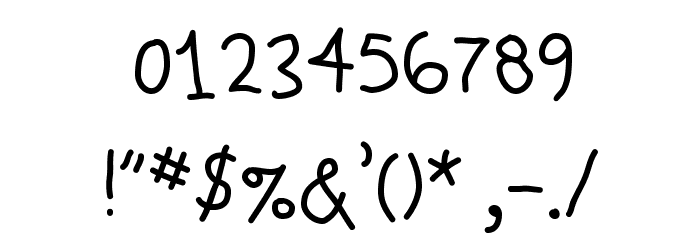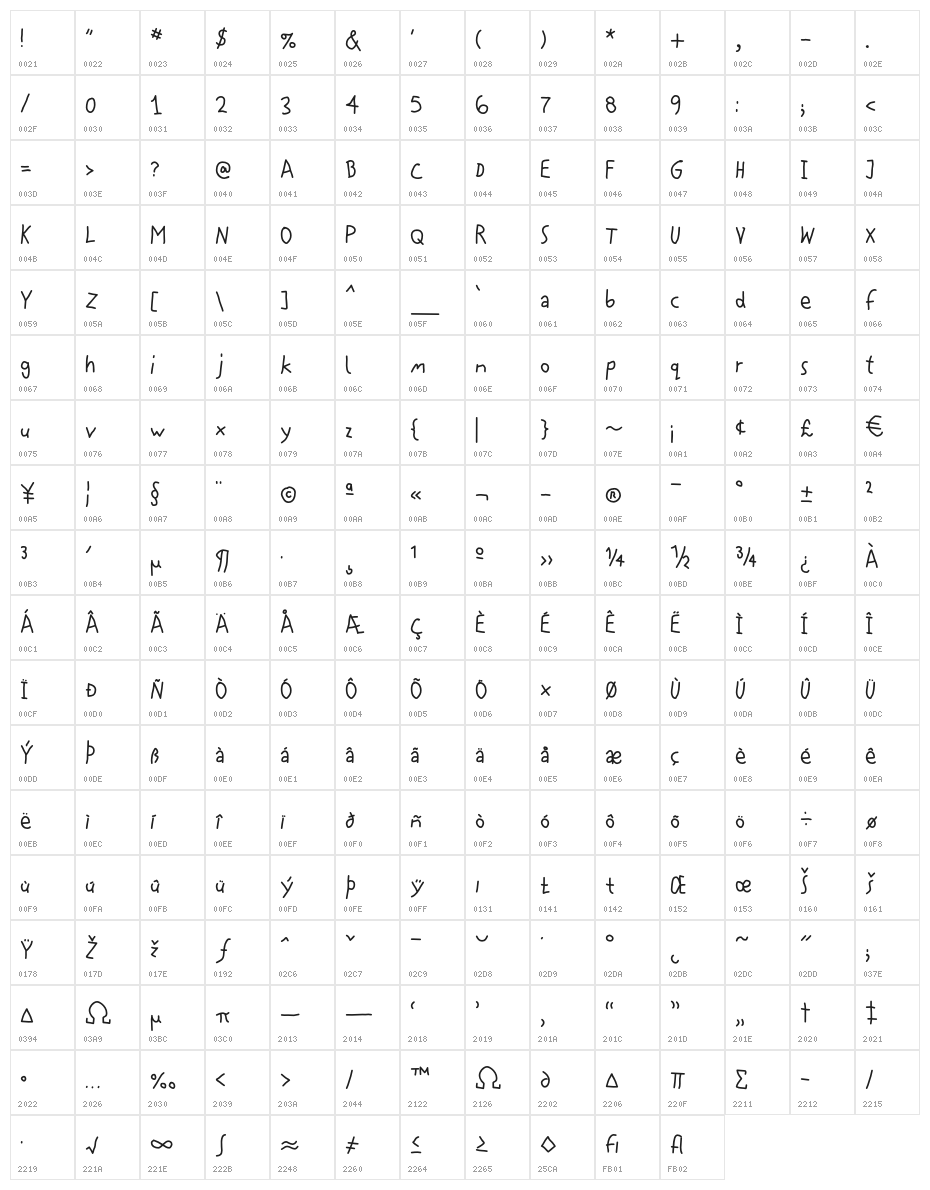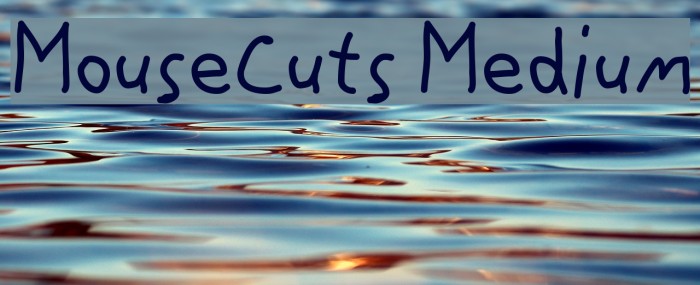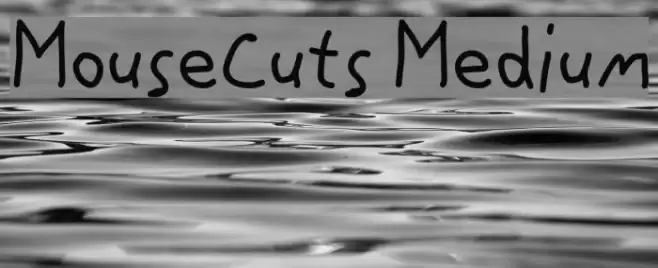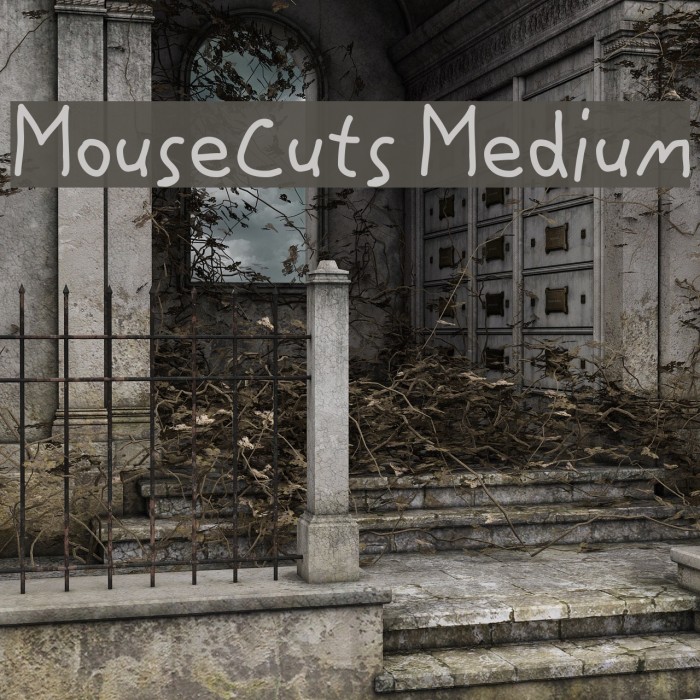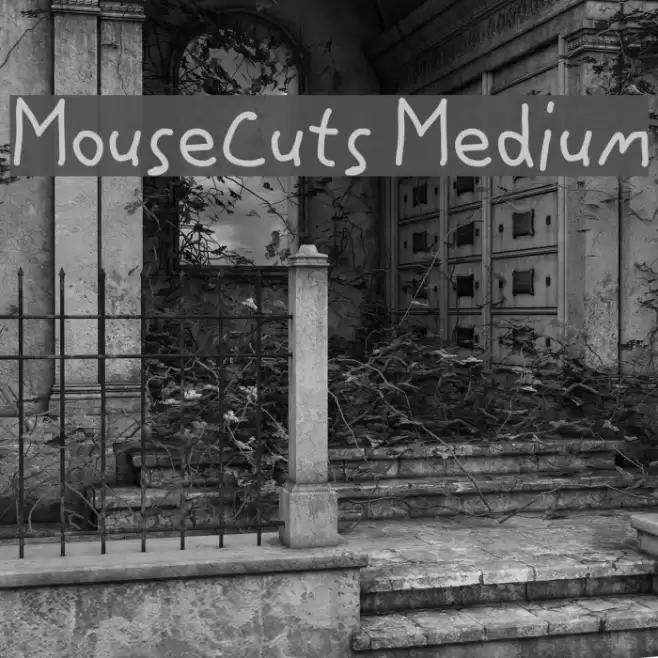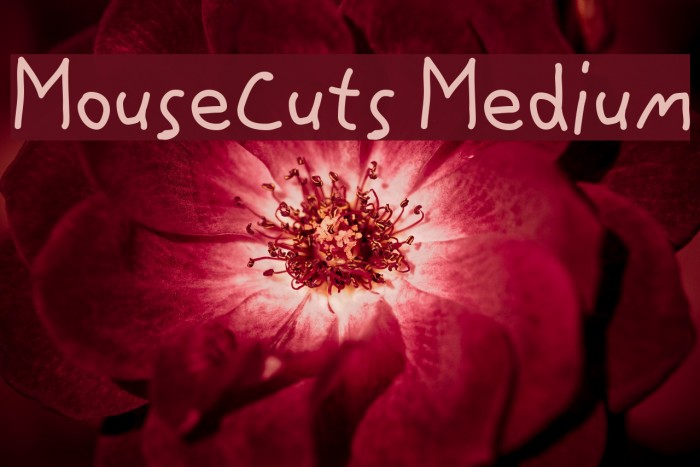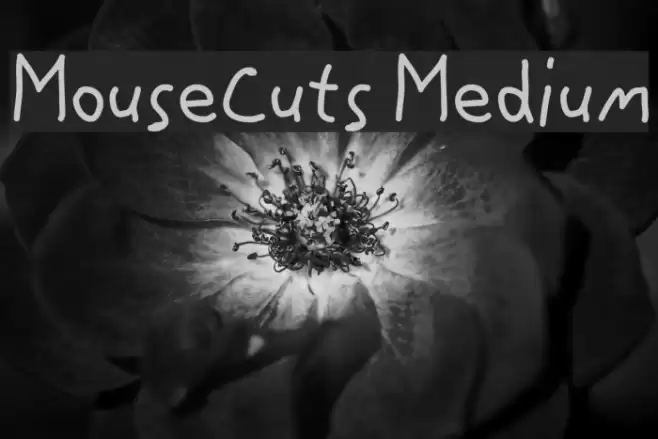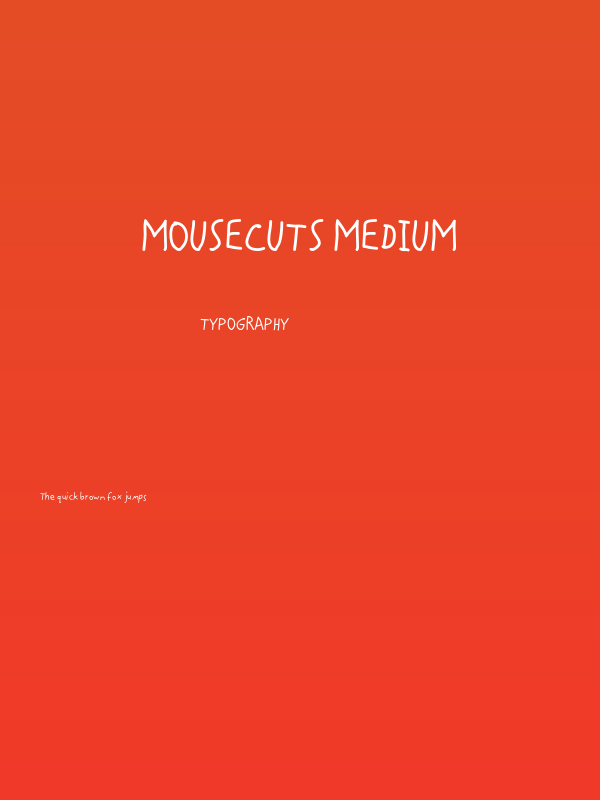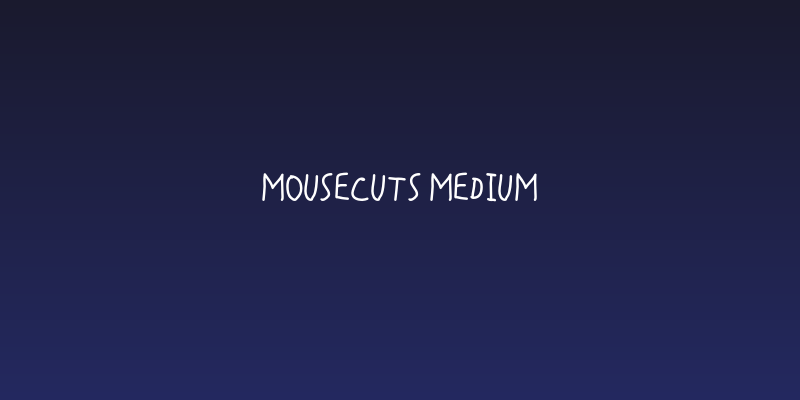
MouseCuts Medium Font
MouseCuts Medium Description
This font features a playful and casual handwritten style, characterized by its irregular and slightly whimsical letterforms. The strokes are uneven, giving it a natural and organic feel, reminiscent of a personal note or a casual sketch. The uppercase and lowercase letters maintain a consistent style, with a slight tilt and varying stroke widths that add to its charm. Numbers and special characters follow the same playful aesthetic, making it versatile for various informal applications. The overall appearance is friendly and approachable, suitable for projects that require a personal touch.
| Use Case | Headlines, Informal text, Personal notes |
| Proposed Projects | Ideal for greeting cards, children's books, casual branding, and personal blogs. |